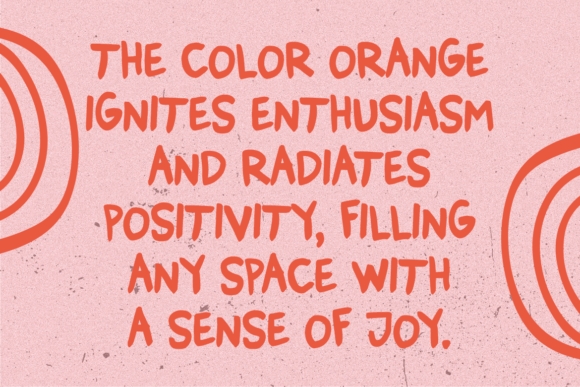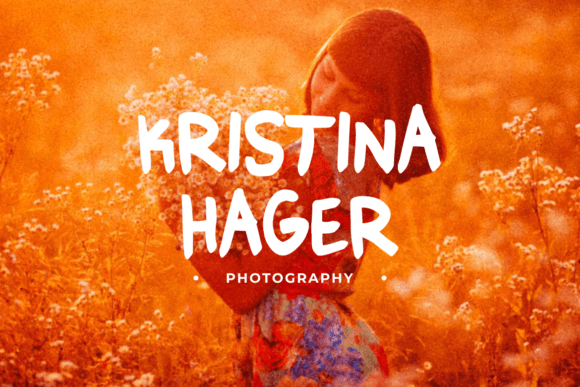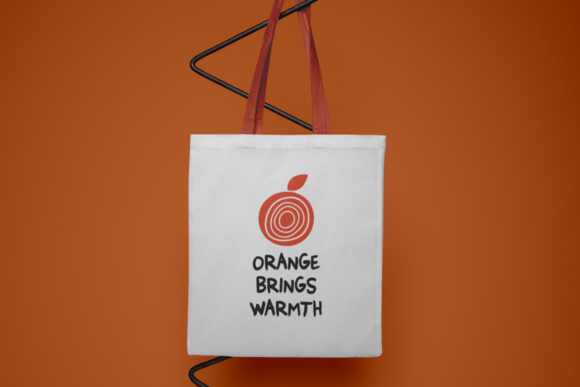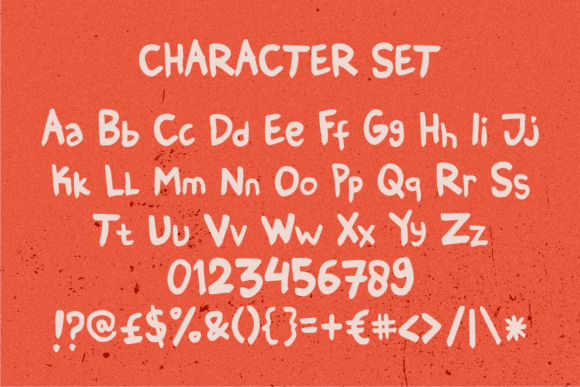
Introduction to Sereness Font
Have you ever stumbled upon a font that instantly sparks your creativity? For me, that moment happened when I discovered the delightful Sereness Font. As I sat at my desk, pouring over design concepts for a client, I found myself lost in the whimsical world of this charming typeface. The playful brush strokes and quirky character shapes danced across the page, and I knew I had to learn more.
The Sereness Font is a treasure trove for designers, offering a high-quality design resource that’s perfect for creative projects. With its transparent background and free download option, this versatile font is an essential tool for anyone looking to add a touch of personality to their designs. Whether you’re crafting eye-catching logos, heartwarming invitation cards, or packaging that stands out on shelves, the Sereness Font is sure to deliver a smile.
What sets the Sereness Font apart is its ability to evoke a sense of warmth and happiness, reminiscent of childhood sketches and fond memories. This is why it’s an invaluable resource for businesses aiming to connect with customers through a friendly and approachable brand voice.
Key Features of Sereness Font
- Unique, elegant design with a minimalist approach, perfect for creative projects
- High-quality font with transparent background, ideal for designs requiring subtle texture
- Designed to provide a serene and calming aesthetic, making it perfect for branding, typography, and creative projects
Honest Review: Sereness Font
As a designer, I’m always on the lookout for high-quality design resources to elevate my creative projects. Recently, I had the chance to try out the Sereness Font, and I must say it’s been a pleasant surprise.
- ✨ Beautifully designed characters with a modern and minimalist aesthetic.
- ✨ Supports a wide range of languages, making it perfect for international projects.
- ⚠️ The font doesn’t come with a transparent background option, which might be a deal-breaker for some designers who require this feature.
- ⚠️ Some of the characters may require manual adjustments to achieve the perfect spacing and alignment.
Overall, I’m impressed with the Sereness Font’s design quality and versatility. While it may have some limitations, it’s definitely a great addition to any designer’s toolkit. If you’re looking for a free and high-quality font for your next creative project, the Sereness Font is definitely worth checking out.
The Sereness Font has a transparent background, making it ideal for use in designs with complex backgrounds. You can also use it in combination with other fonts to create a unique and creative design.
The Sereness Font is commonly used in designs such as logos, business cards, and social media graphics. It is also used in creative projects such as posters, flyers, and brochures.